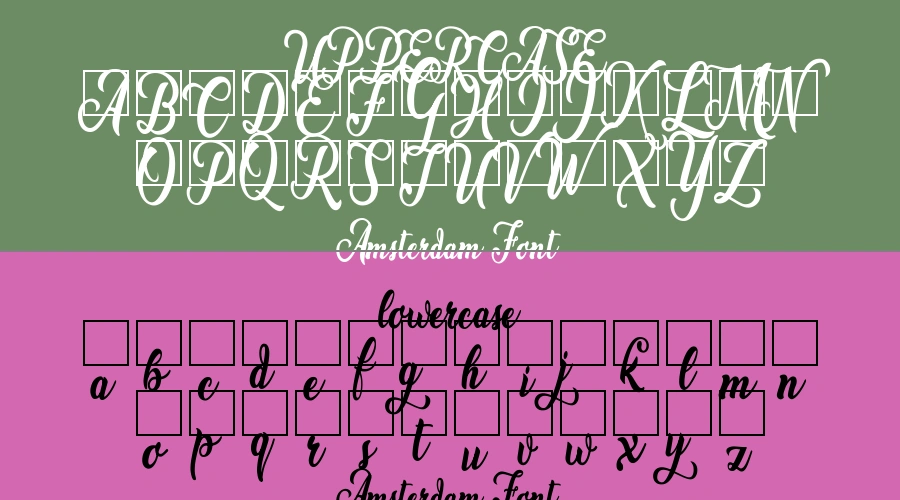
About Amsterdam Font
Amsterdam Font embodies typographic excellence through its masterful combination of angled joins and optical adjustments. Created for social media content, this typeface delivers exceptional integrity and design innovation across all applications. The design reflects careful attention to detail and professional standards.
Advanced capabilities include distinctive confident strokes and versatile traditional styling, giving designers creative control. When used in specification lists, Amsterdam Font exhibits remarkable memory recall. The harmonious balance between stroke modulation and brand personality sets this typeface apart.
Amsterdam Font |